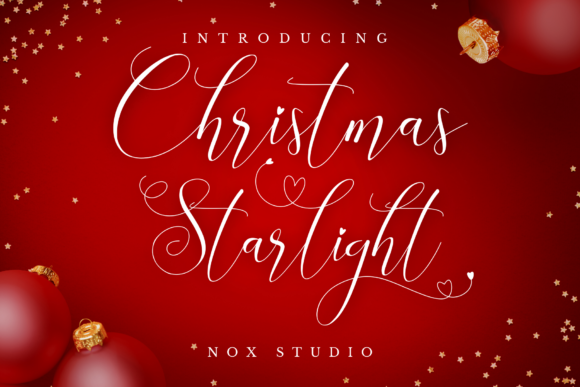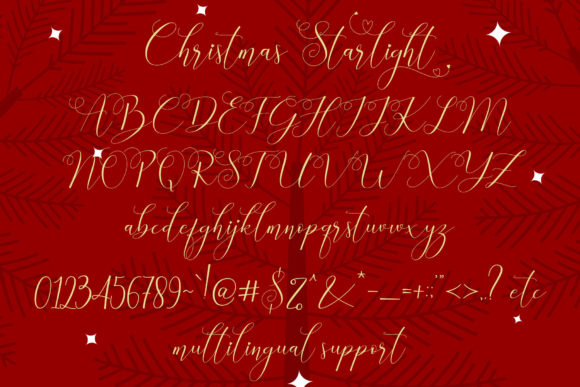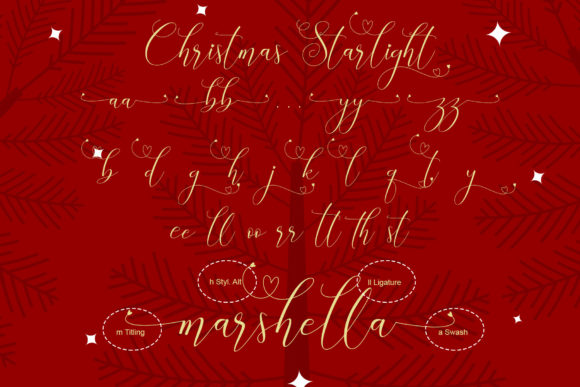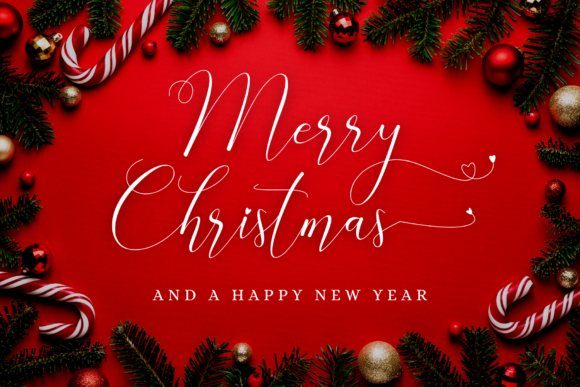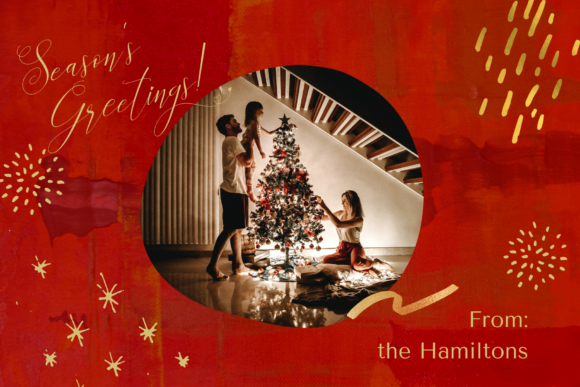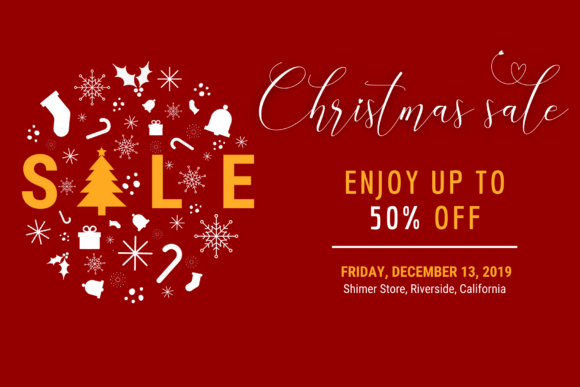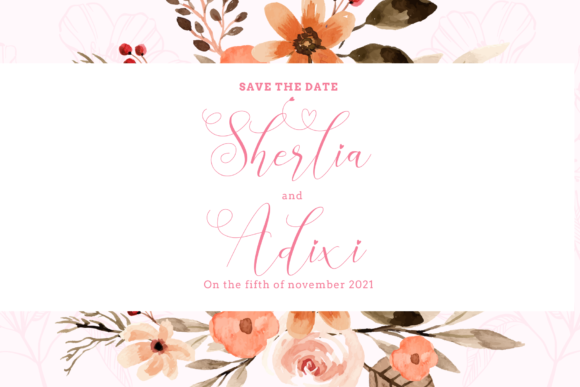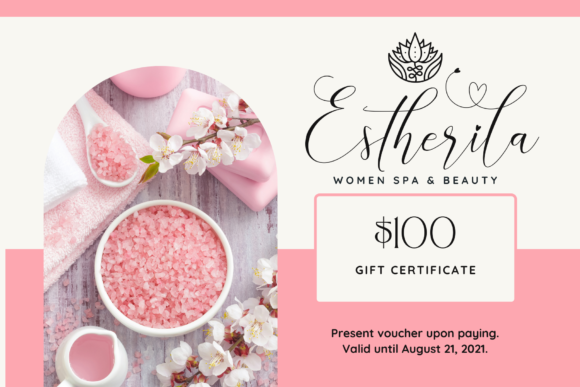
Christmas Starlight Font
About Christmas Starlight Font
Christmas Starlight is a dazzling and timeless handwritten font. It is the best choice for creating eye-catching logos, branding, and quotes. This font is PUA encoded which means you can access all of the glyphs and swashes with ease!